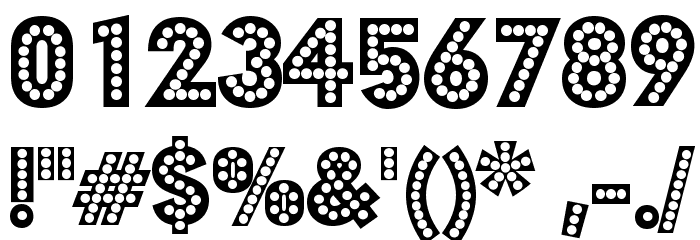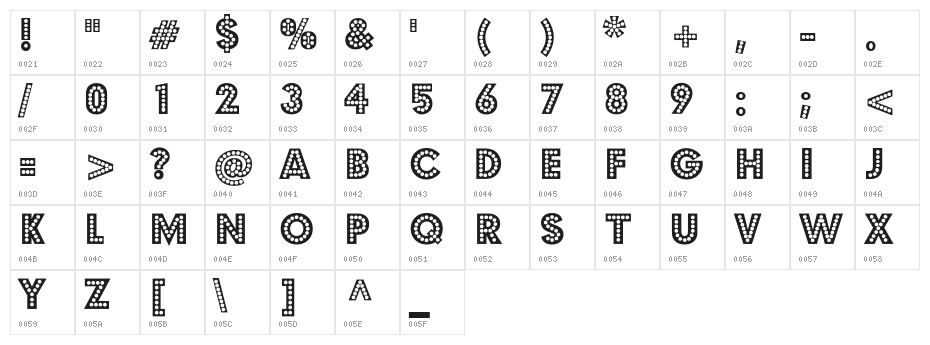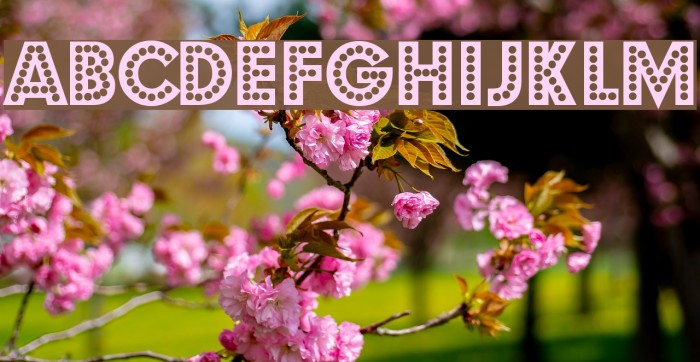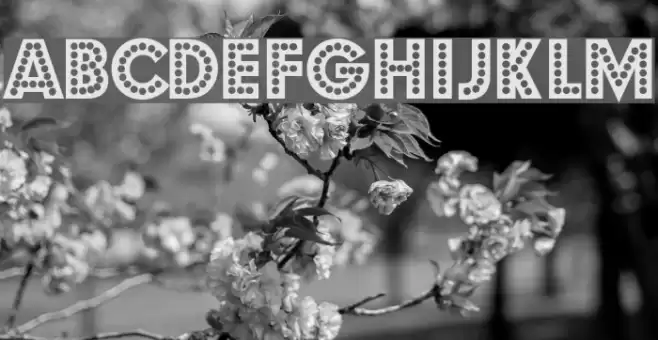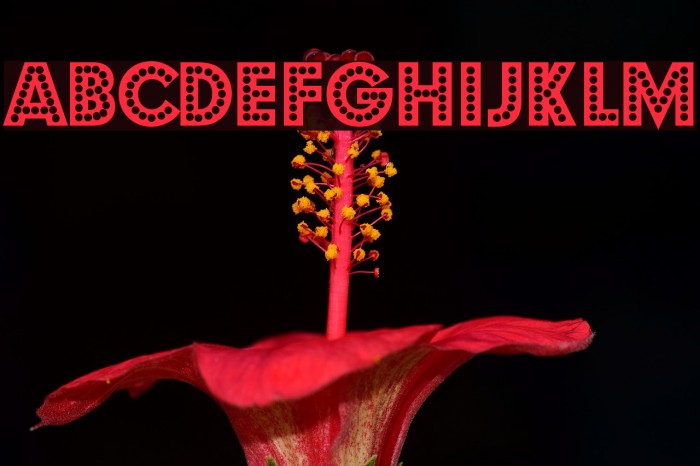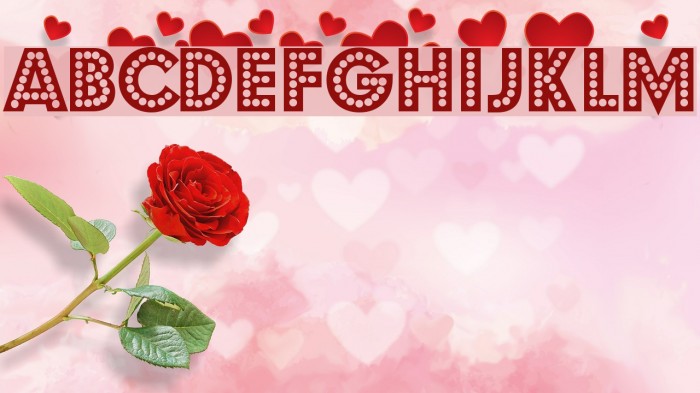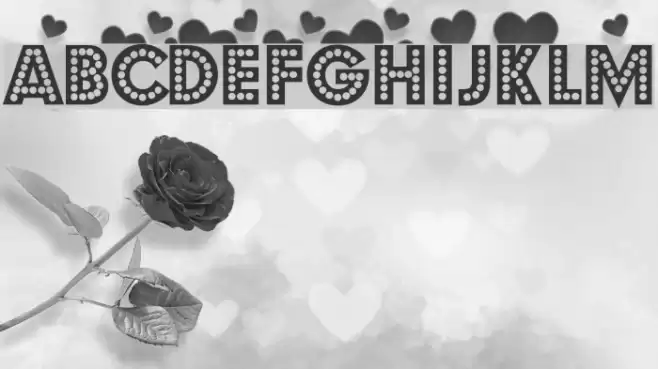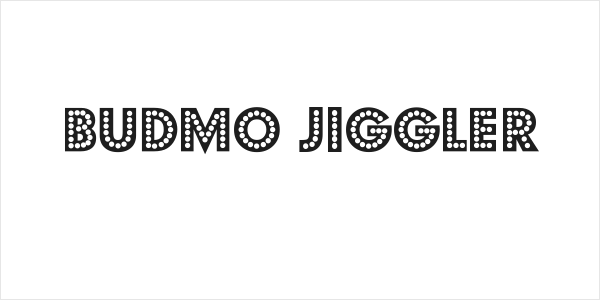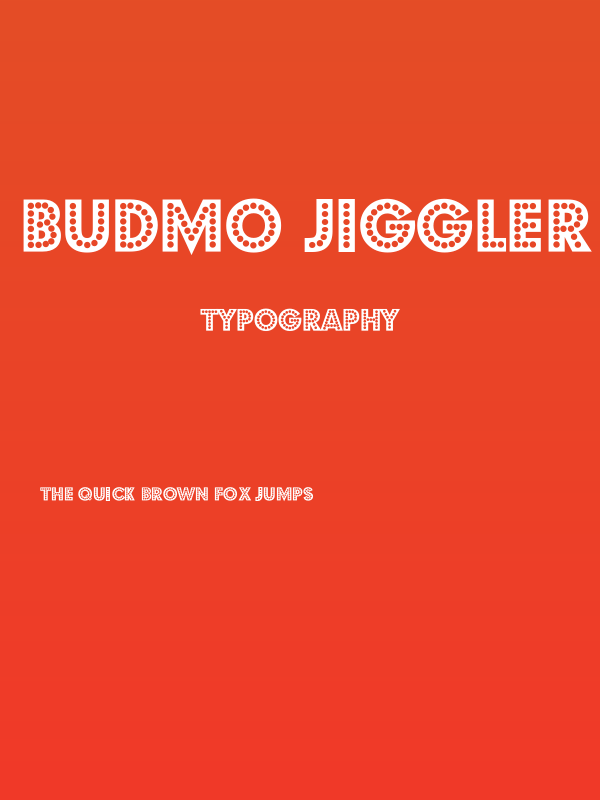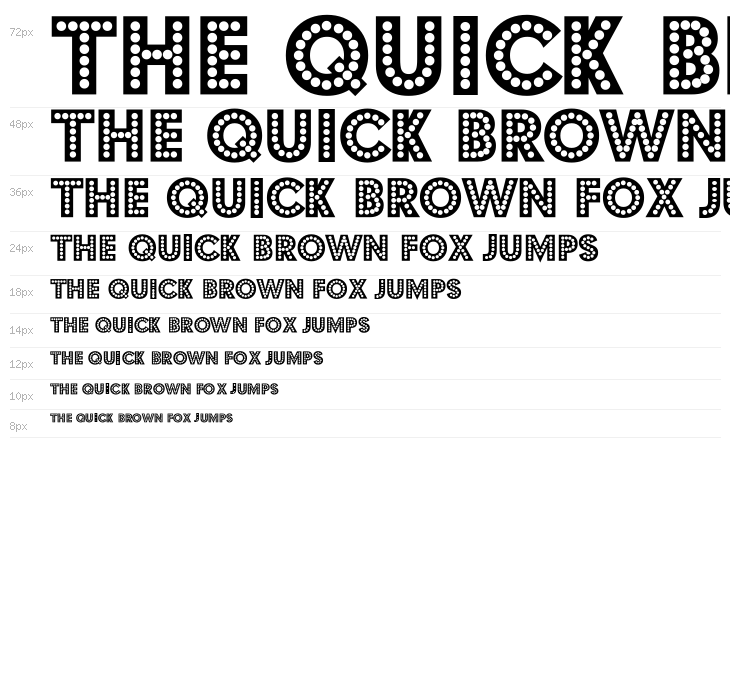
Budmo Jiggler Font
Budmo Jiggler Description
This font features a bold, decorative style with a playful and eye-catching design. Each character is filled with circular dots, reminiscent of marquee lights, giving it a theatrical and lively appearance. The uppercase and lowercase letters maintain a consistent width, enhancing readability while preserving the decorative flair. The numbers and special characters follow the same dotted pattern, ensuring a cohesive look across all glyphs. This font is ideal for projects that require a fun and vibrant aesthetic, such as event posters, party invitations, or any design that seeks to capture attention with a bold statement.
| Proposed Projects | Event posters, party invitations, signage, theatrical displays. |